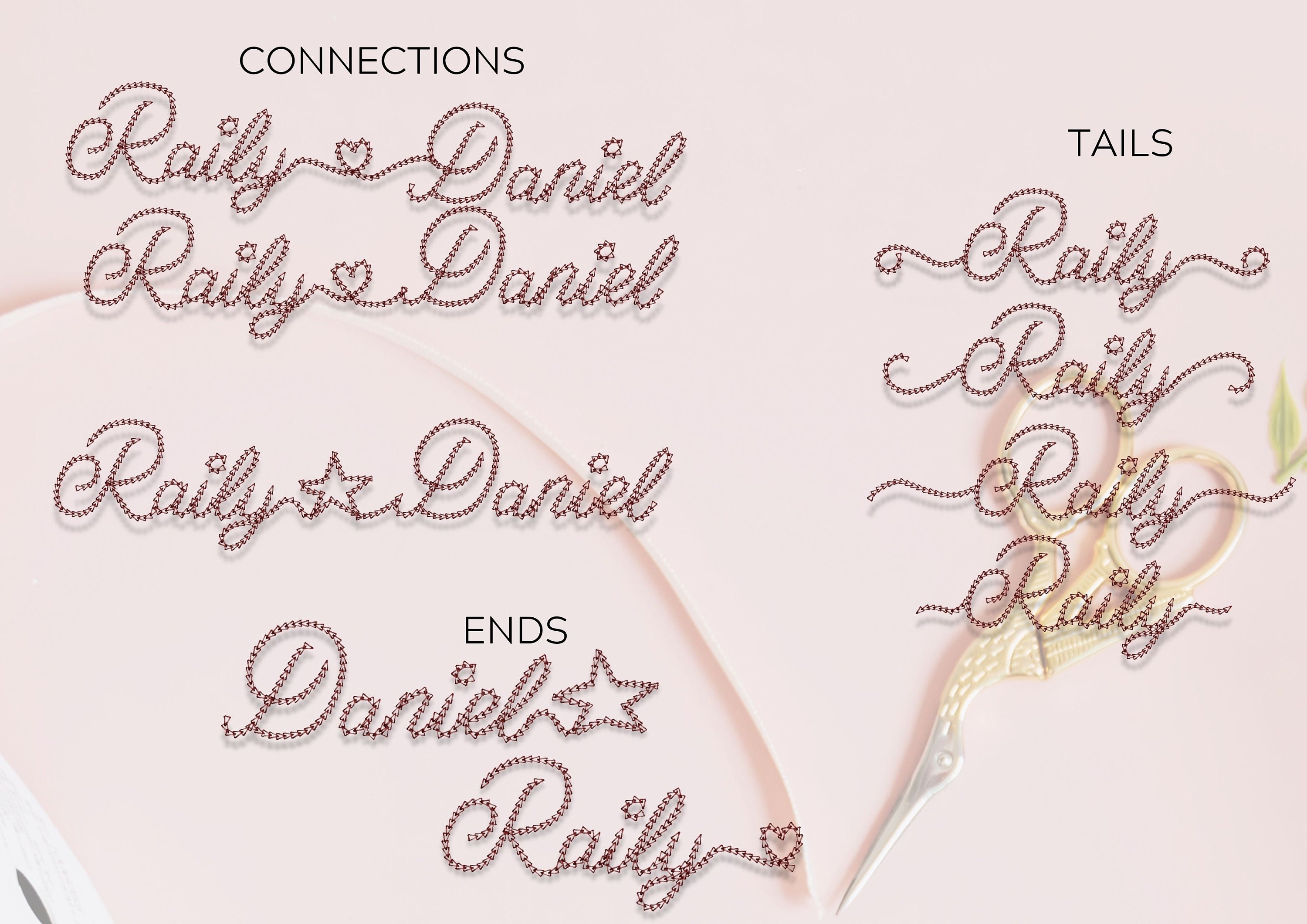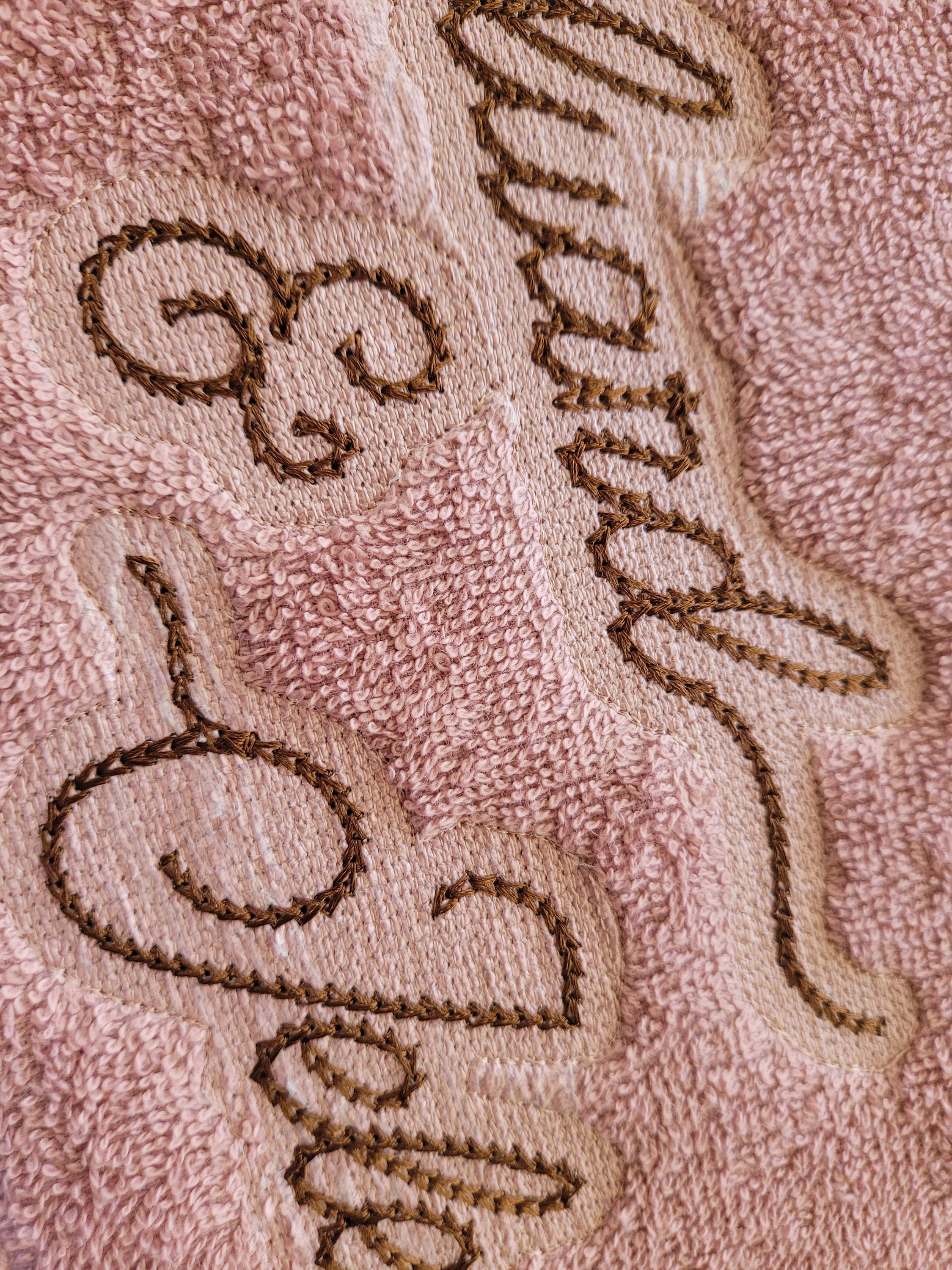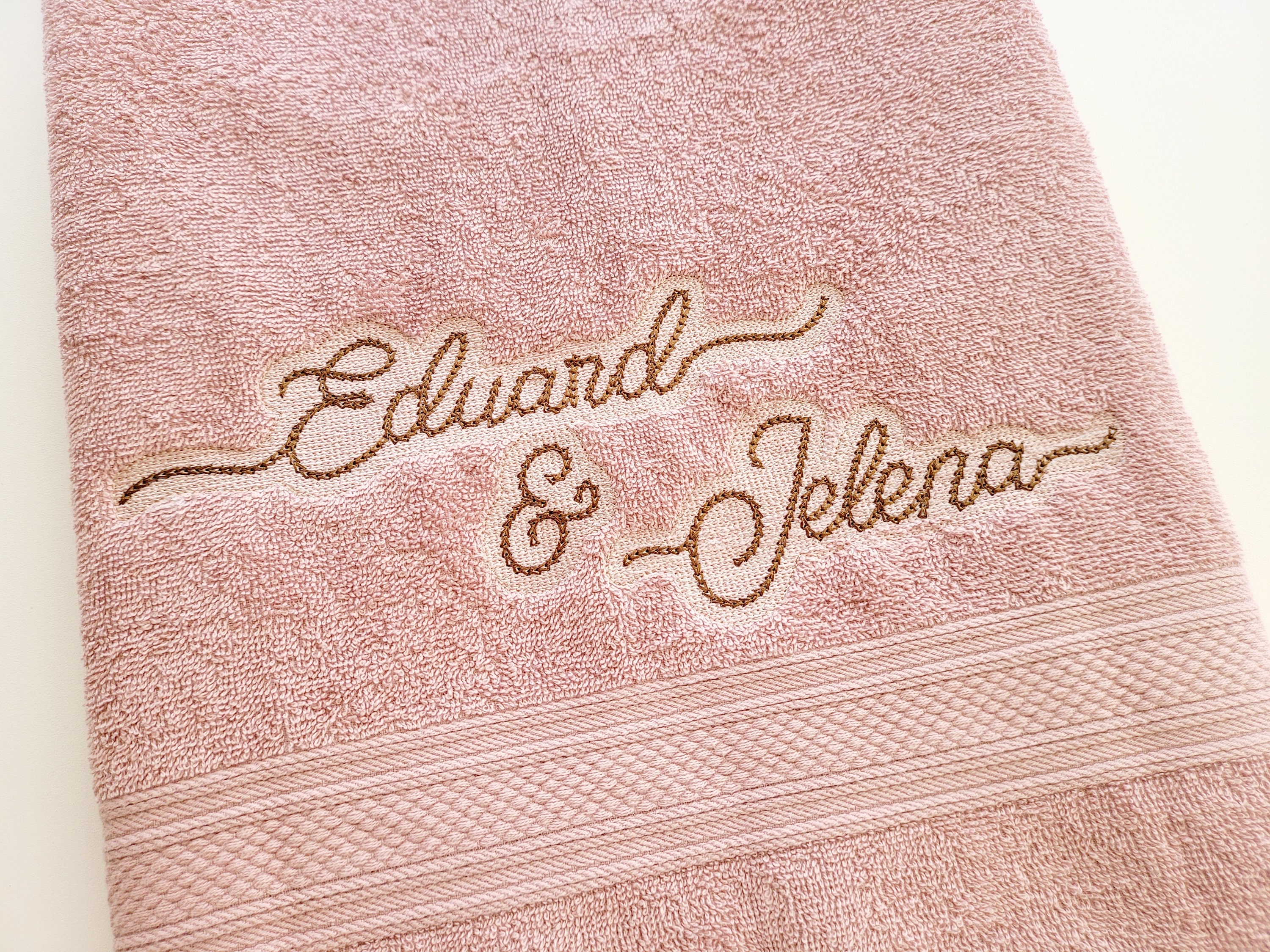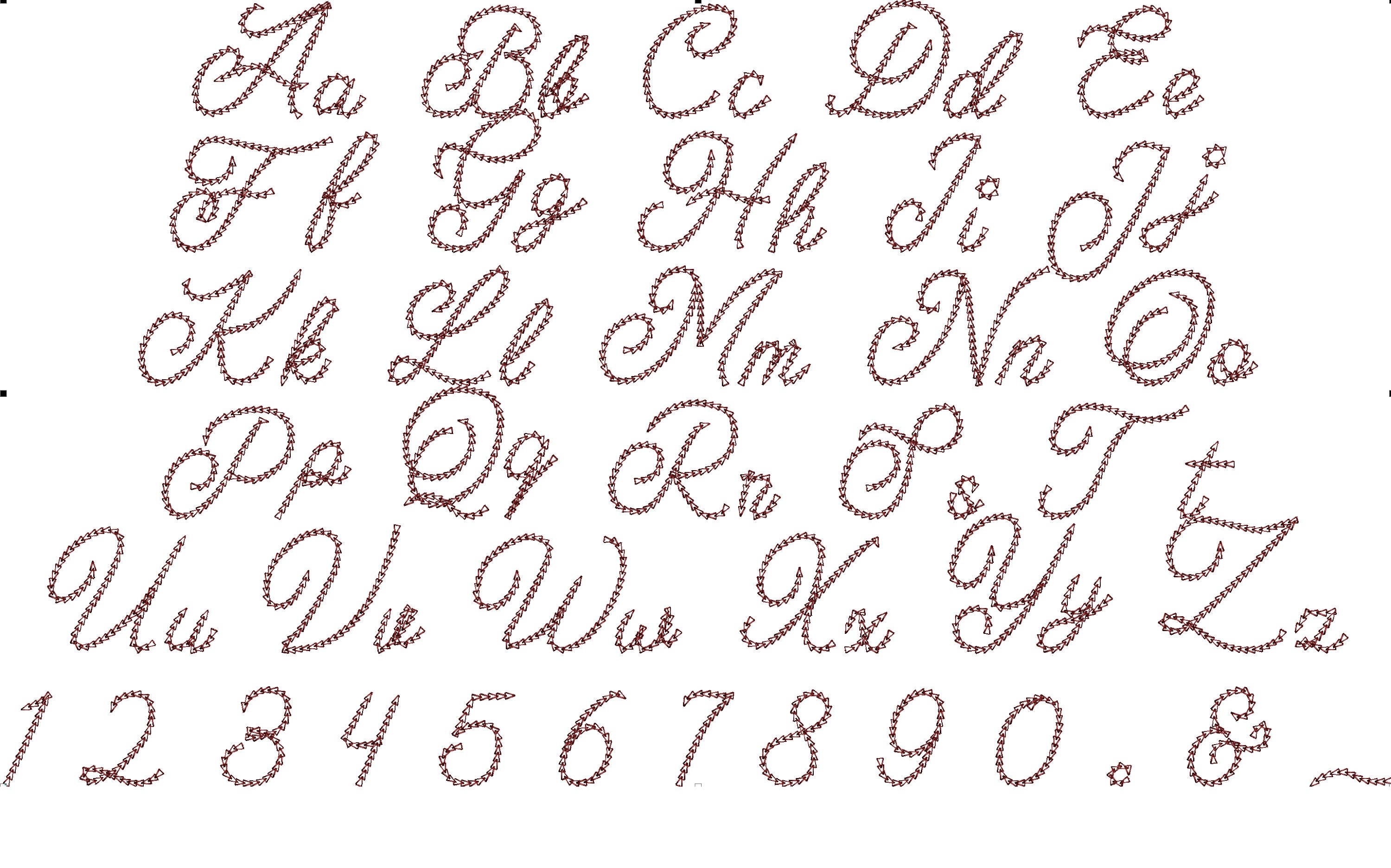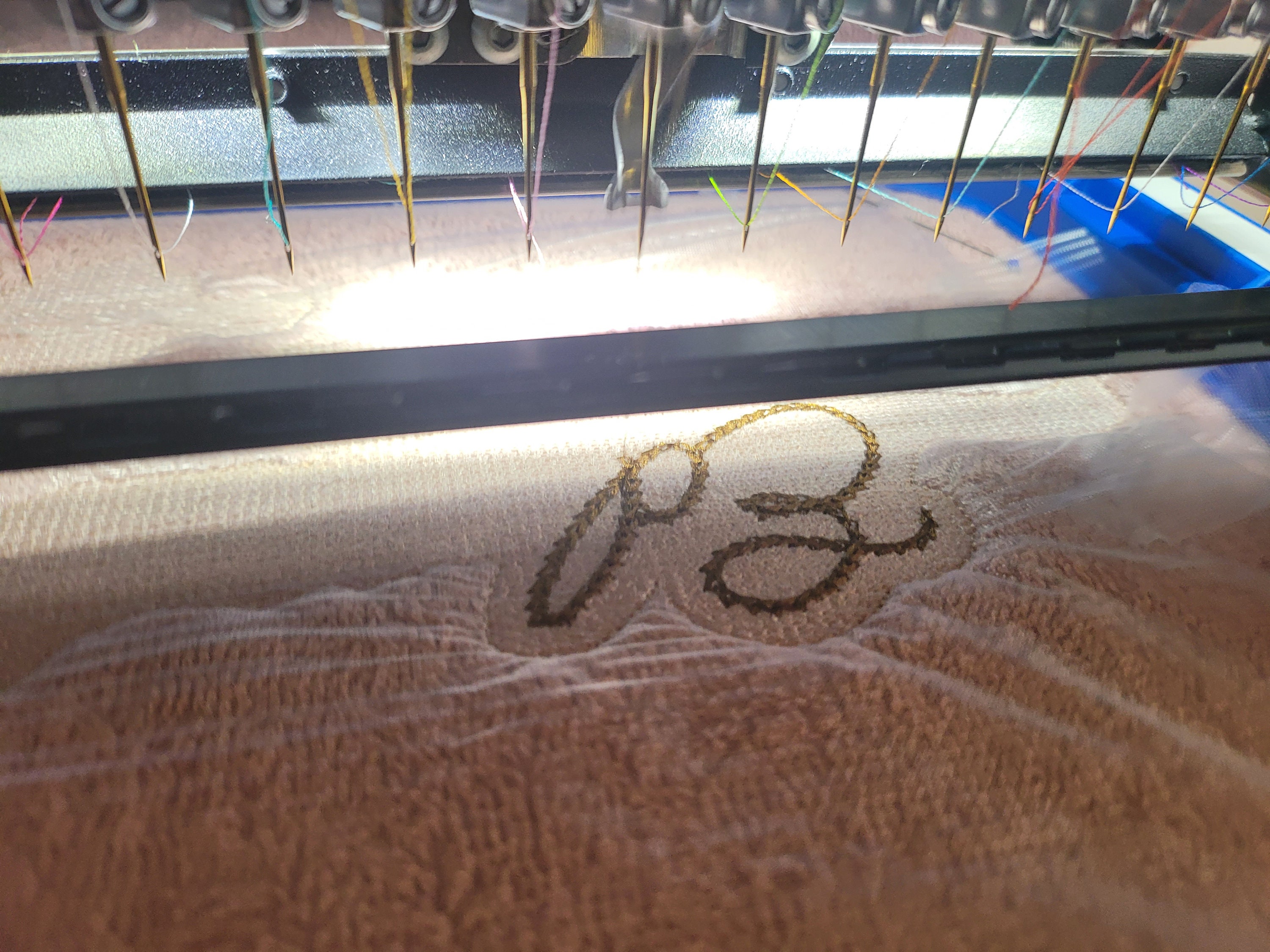
Quick light stitch Chain FONT machine embroidery designs in assorted mini sizes alphabet letters, script Font with tails and connections
Including
4 types of ends
2 types of tails
3 types of connections
Whole alphabet uppercase and lowercase letters, numbers and special marks & . ~